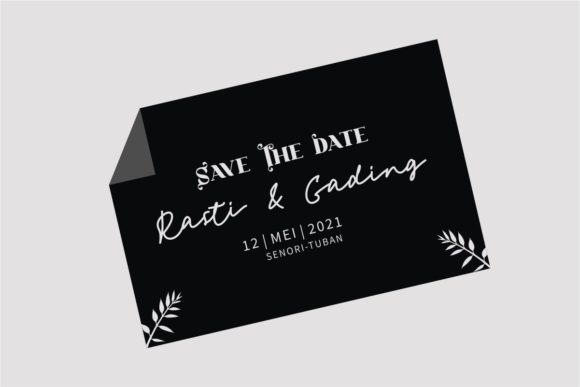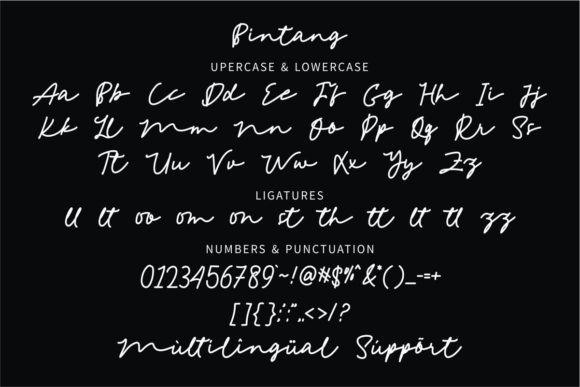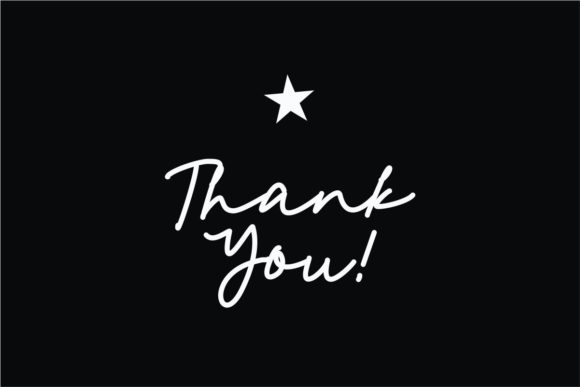
About Bintang Font
Bintang is a delicate, elegant, and flowing handwritten font that brings a touch of sophistication to your designs. With its beautiful and well-balanced characters, this font seamlessly complements a wide range of design styles and projects. You can confidently add Bintang to your projects and be amazed by the results.
The delicate nature of Bintang creates a sense of grace and refinement. Its flowing strokes and elegant curves give it a captivating and harmonious look. Whether you’re designing invitations, logos, branding materials, or any other project, Bintang adds a touch of elegance that enhances the overall aesthetic.
The well-balanced characters of Bintang contribute to its versatility. This font matches a wide pool of designs, making it suitable for various applications. From romantic and feminine themes to minimalistic and modern concepts, Bintang effortlessly adapts and elevates your designs.
Adding Bintang to your projects allows you to enjoy the results with confidence. Its timeless beauty and refined style bring a level of sophistication that resonates with your audience. It adds a personal and artistic touch, making your designs stand out and leaving a lasting impression.
In summary, Bintang is a delicate, elegant, and flowing handwritten font that adds a touch of sophistication to a wide range of designs. With its beautiful and well-balanced characters, it is a versatile choice for various applications. Add Bintang confidently to your projects and witness the stunning results it brings.